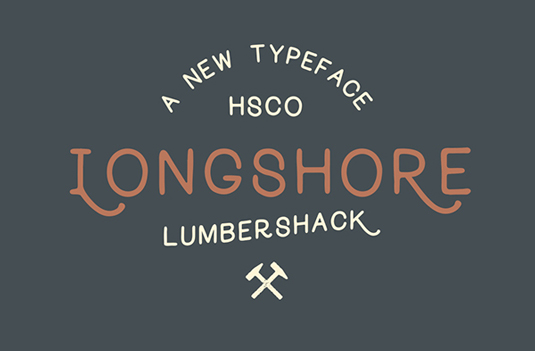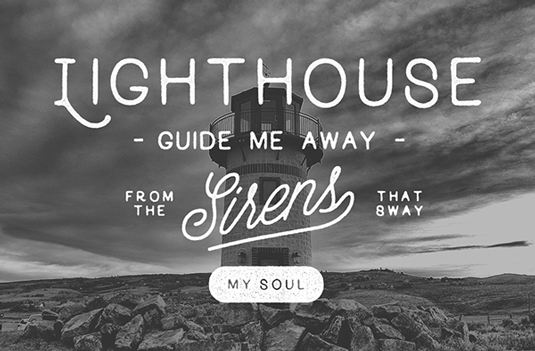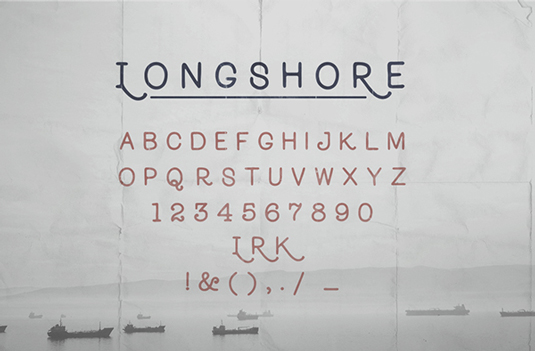
Font of the day: Longshore
Every day we showcase the best fonts on the web. Today it's Longshore by Jeremy Vessey.
Longshore by Jeremy Vessey
Today's typeface of choice is Longshore, by designer Jeremy Vessey. "Longshore is a modest, hand-drawn font inspired by nautical and rustic themes within label design", Vessey comments.